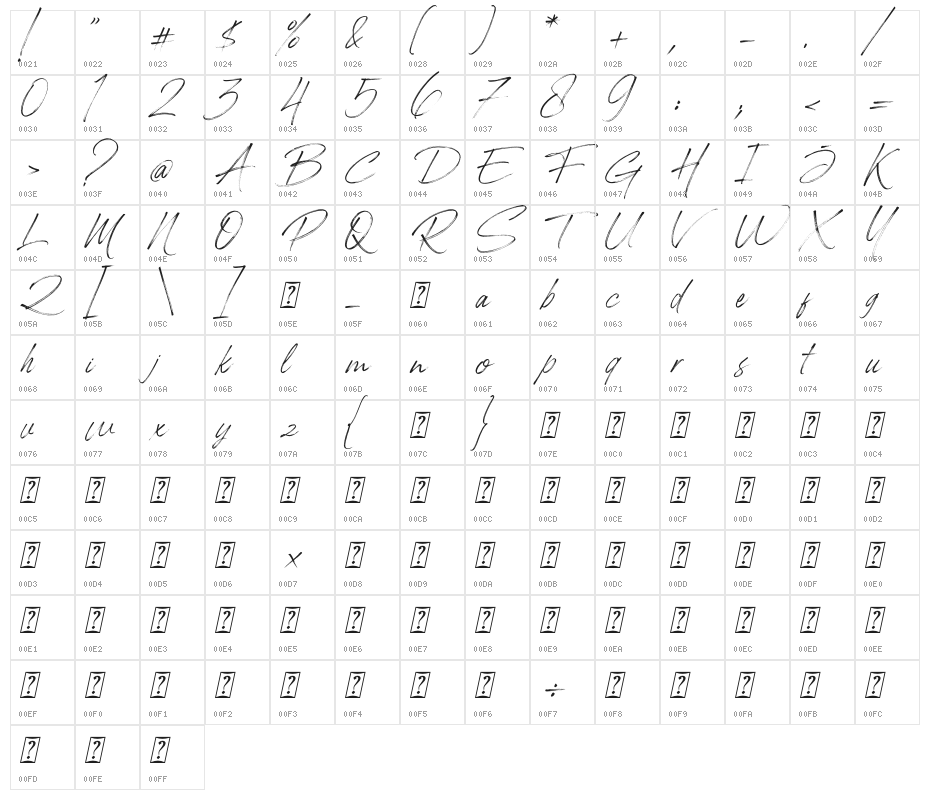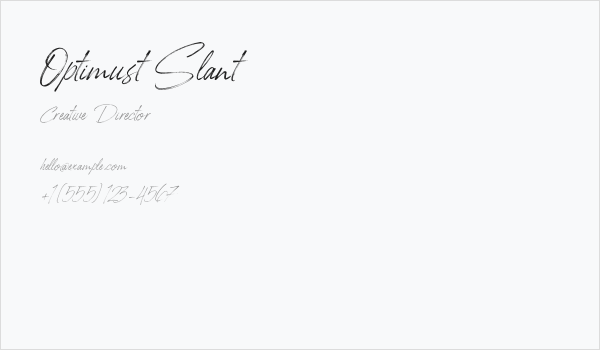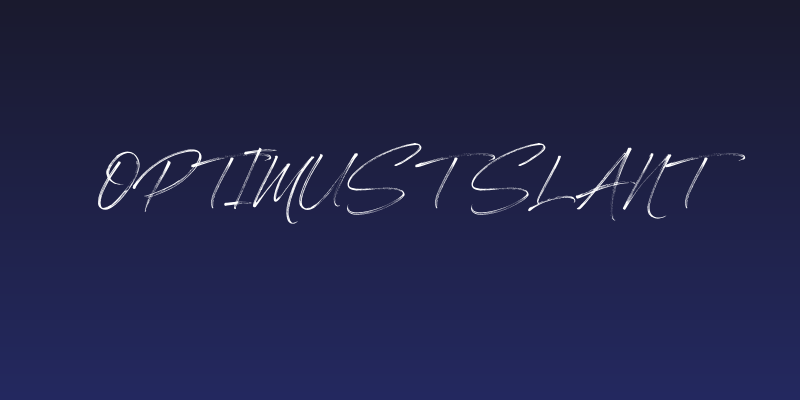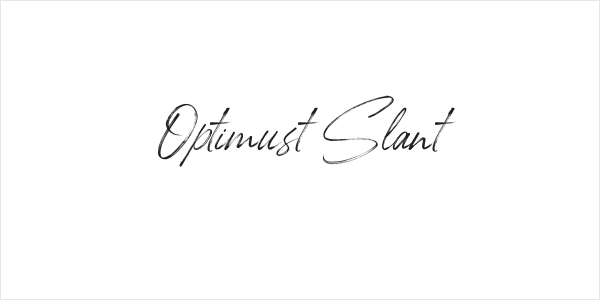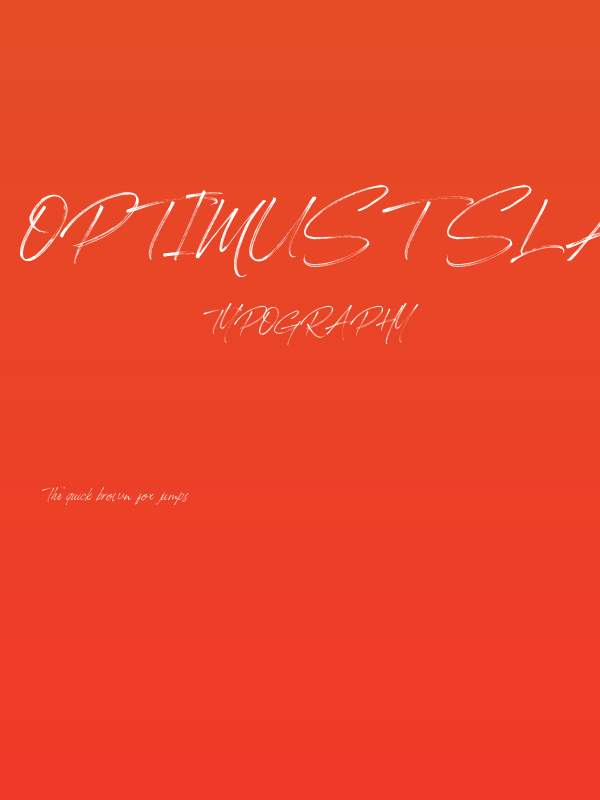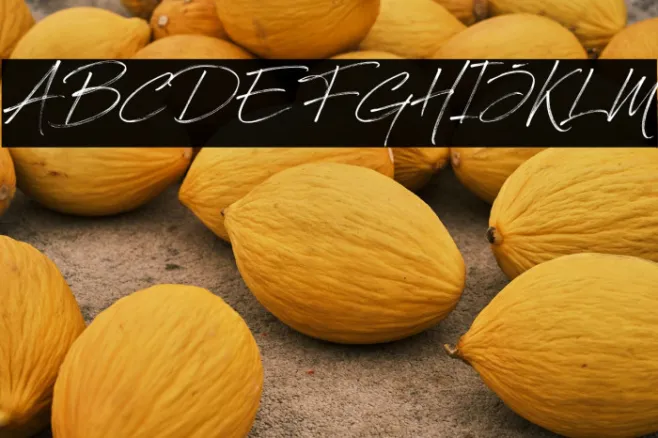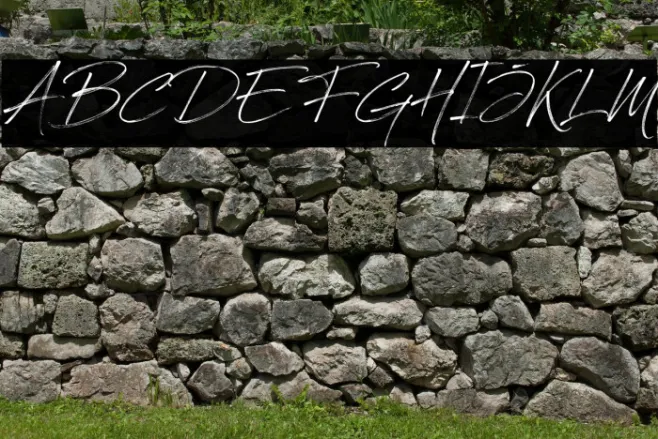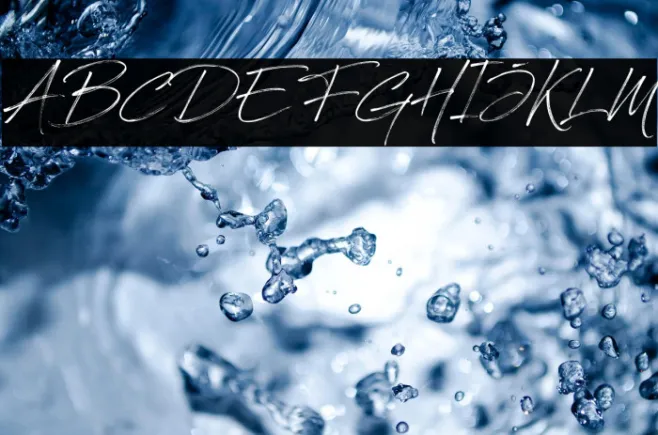
Optimust Slant Font
Optimust Slant Description
This font features a dynamic and expressive style with a distinct slant, giving it a sense of movement and energy. The strokes are fluid and organic, reminiscent of a handwritten script, yet maintain a level of sophistication and elegance. The uppercase letters are bold and prominent, while the lowercase letters are more delicate, creating a balanced contrast. The numerals and special characters follow the same flowing style, ensuring consistency throughout. This font is ideal for projects that require a personal touch or a creative flair.
| Proposed Projects | Ideal for branding, invitations, greeting cards, and artistic projects that require a personal and creative touch. |